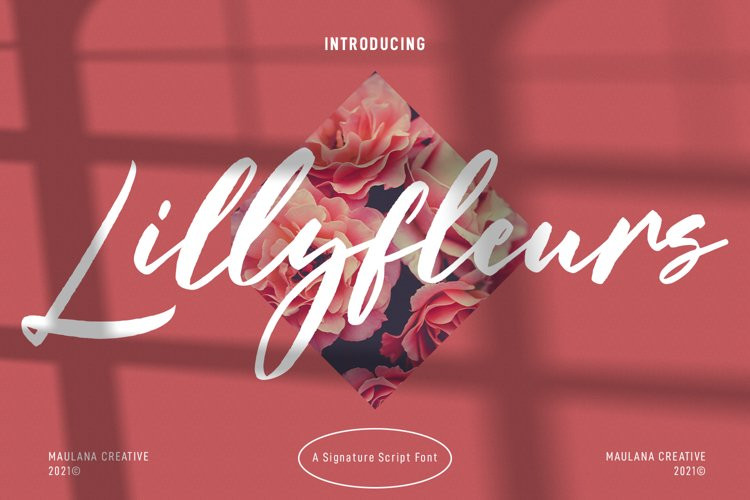
Lillyfleurs Font
Lillyfleurs is a modern script marker font. With regular marker stroke, fun character with some of ligatures. To give you an extra creative work. Lillyfleurs font support multilingual more than 100+ language. This font is good for logo design, Social media, Movie Titles, Books Titles, a short text even a long text letter and good for your secondary text font with sans or serif. Make a stunning work with Lillyfleurs font.